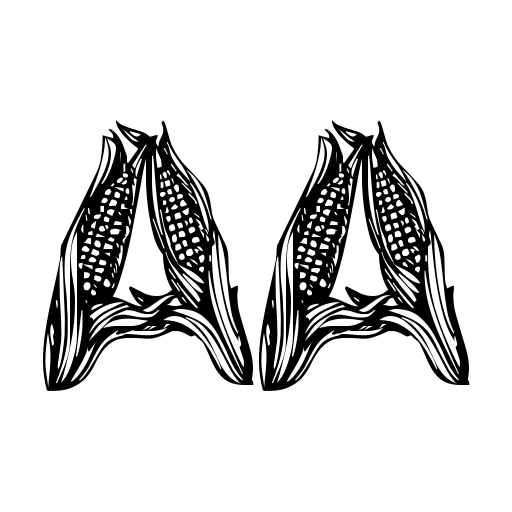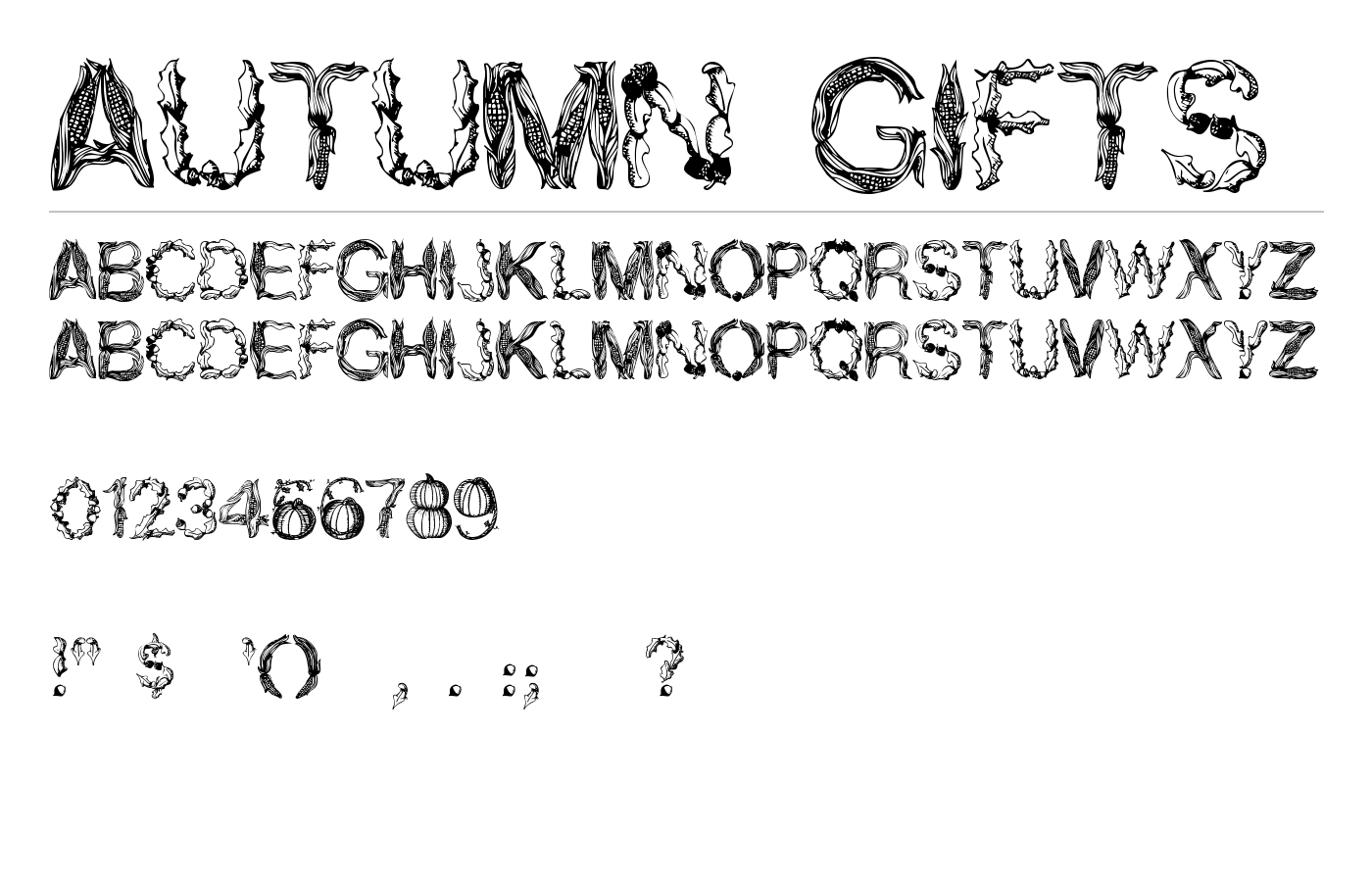
Autumn Gifts is a decorative display font that creatively incorporates autumn-inspired elements like leaves, pumpkins, and corn into its bold, uppercase letterforms. Its intricate, textured strokes and playful style make it ideal for seasonal branding, festive invitations, and eye-catching headlines that celebrate the warmth and charm of fall. This font works best in contexts where a unique, themed aesthetic is desired to evoke a cozy and nature-inspired mood.
Autumn Gifts Font